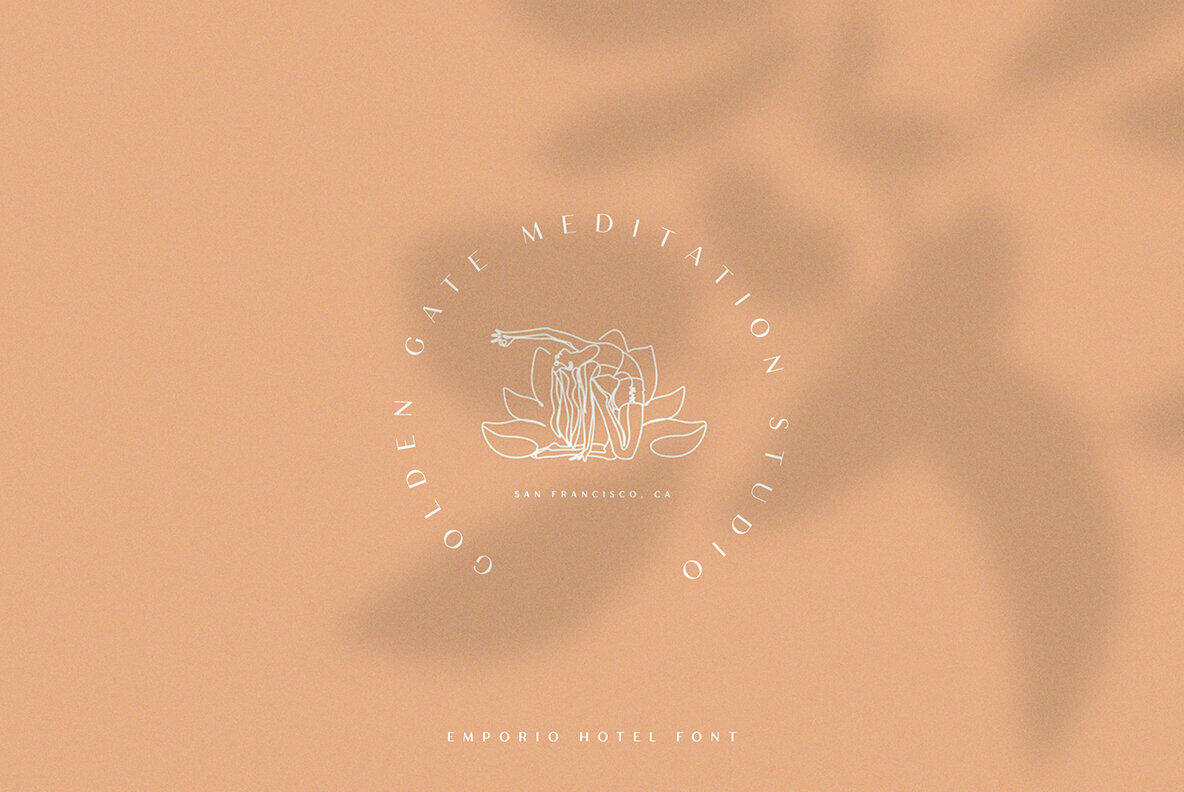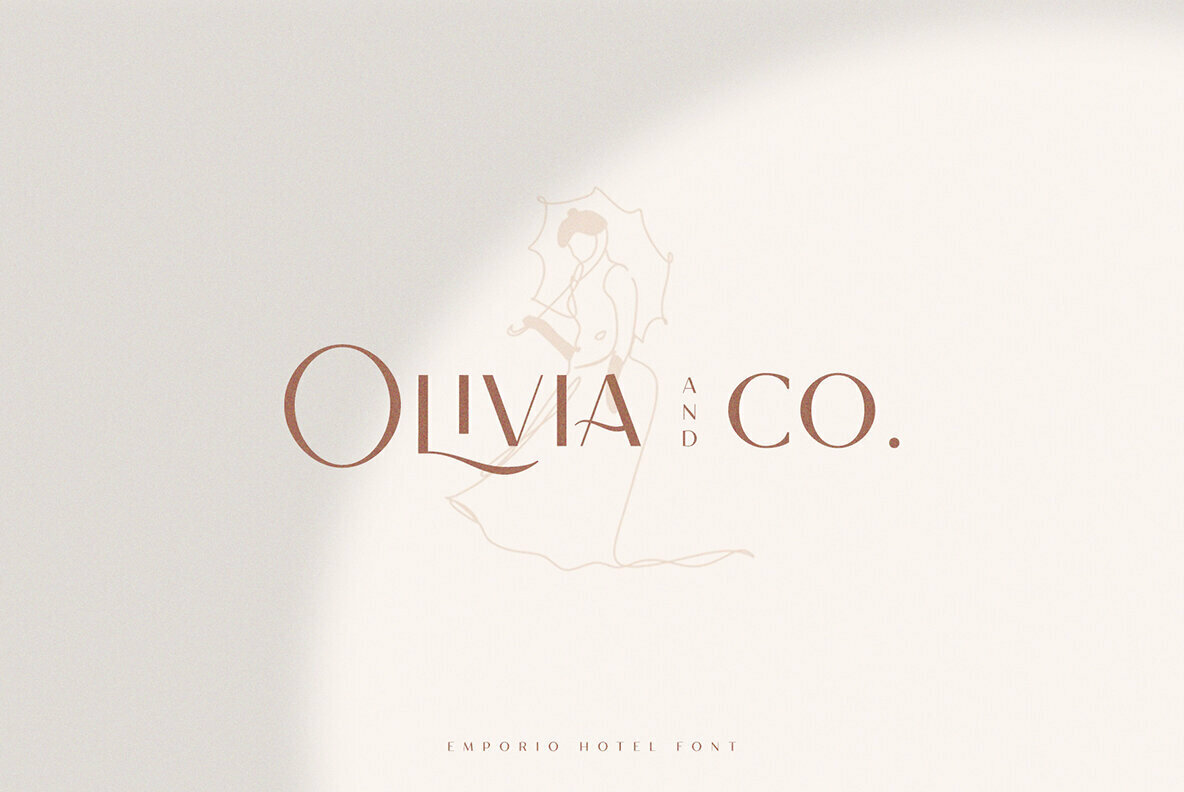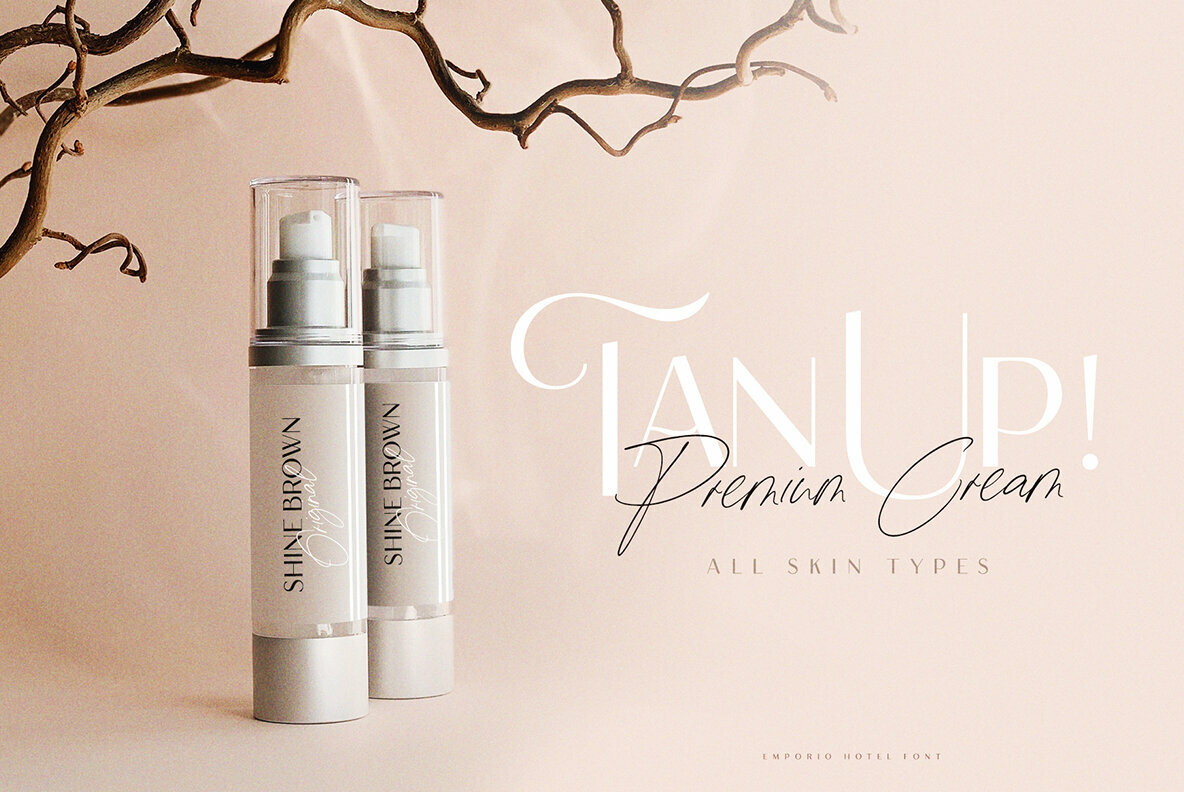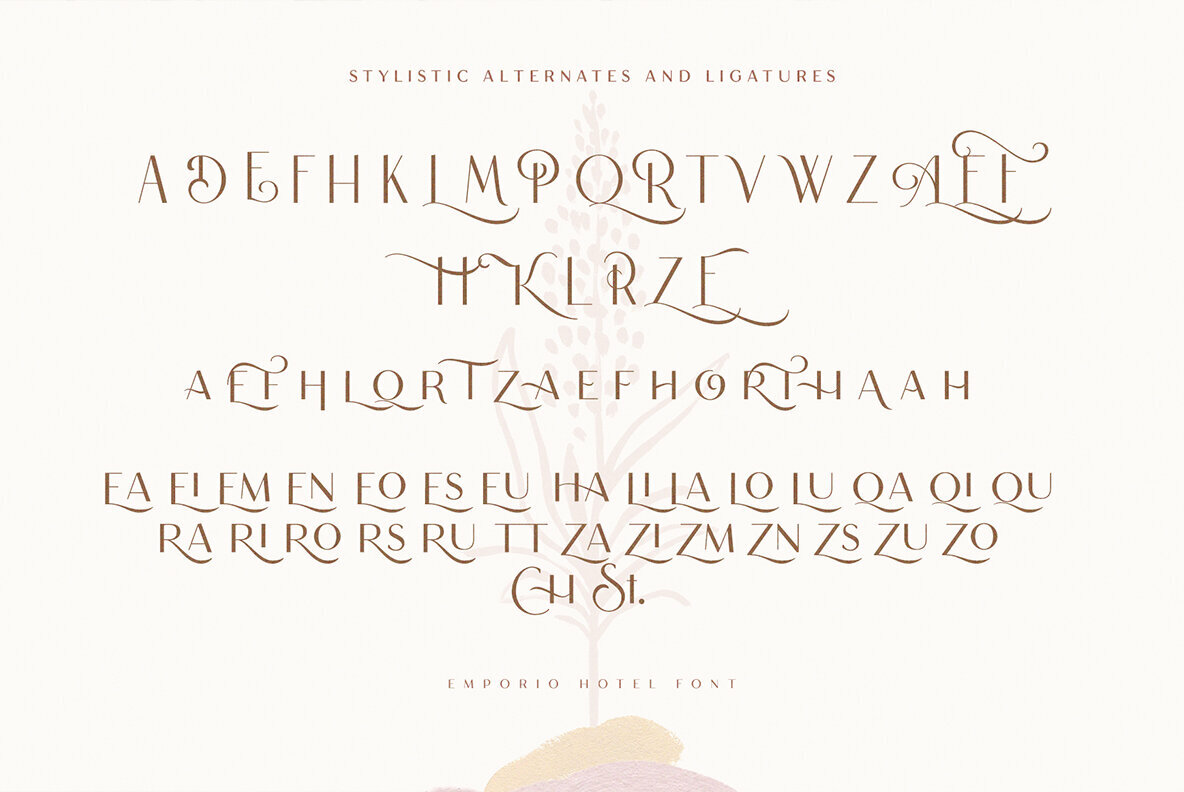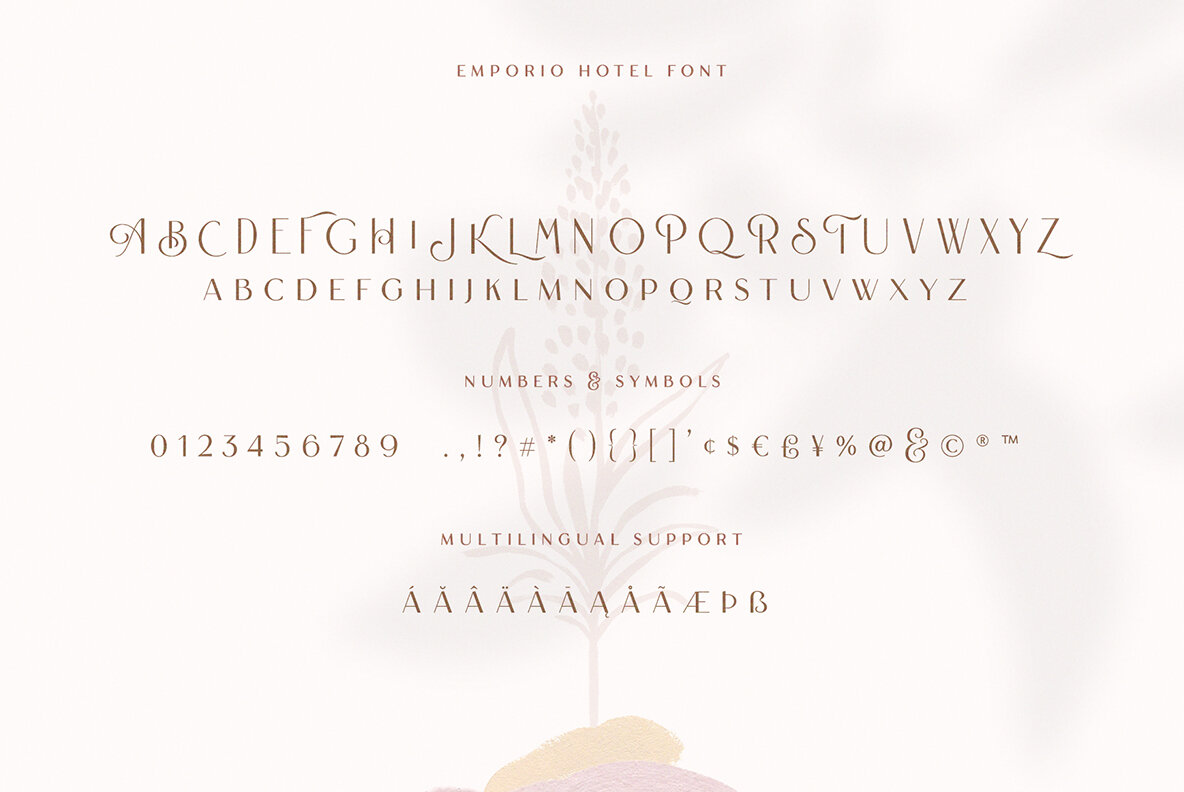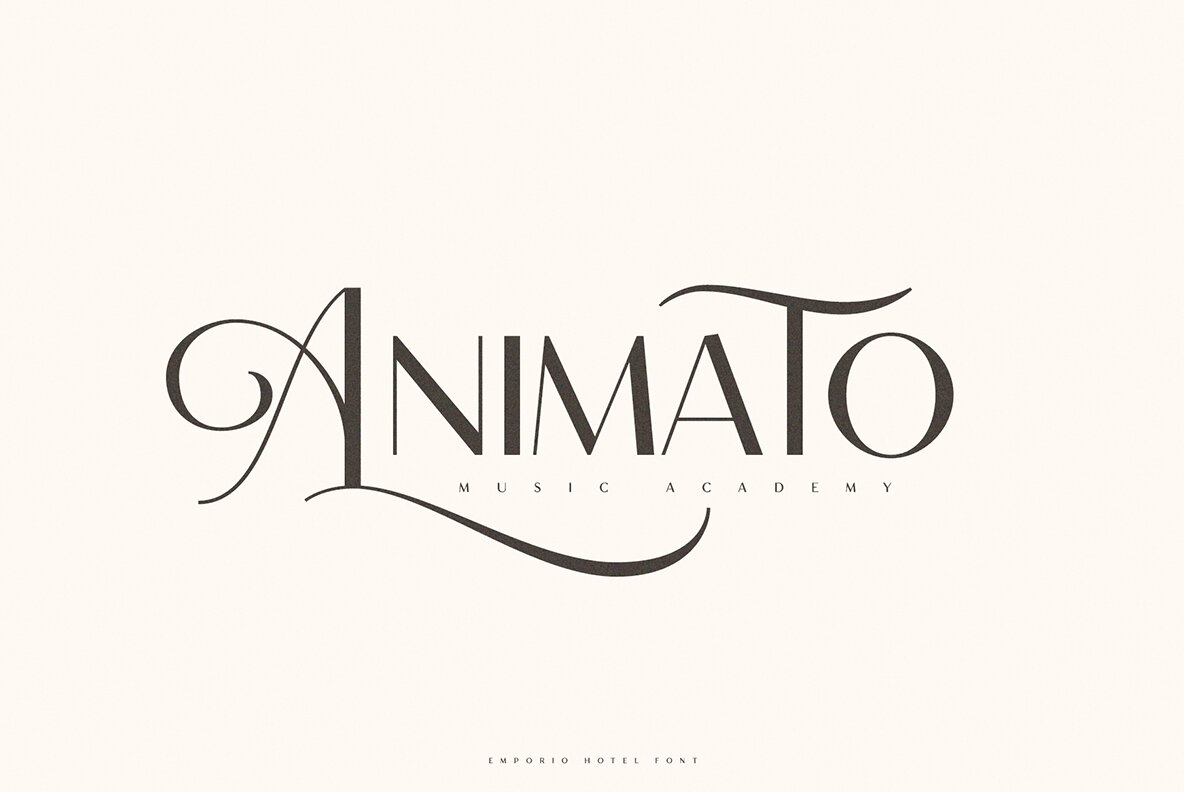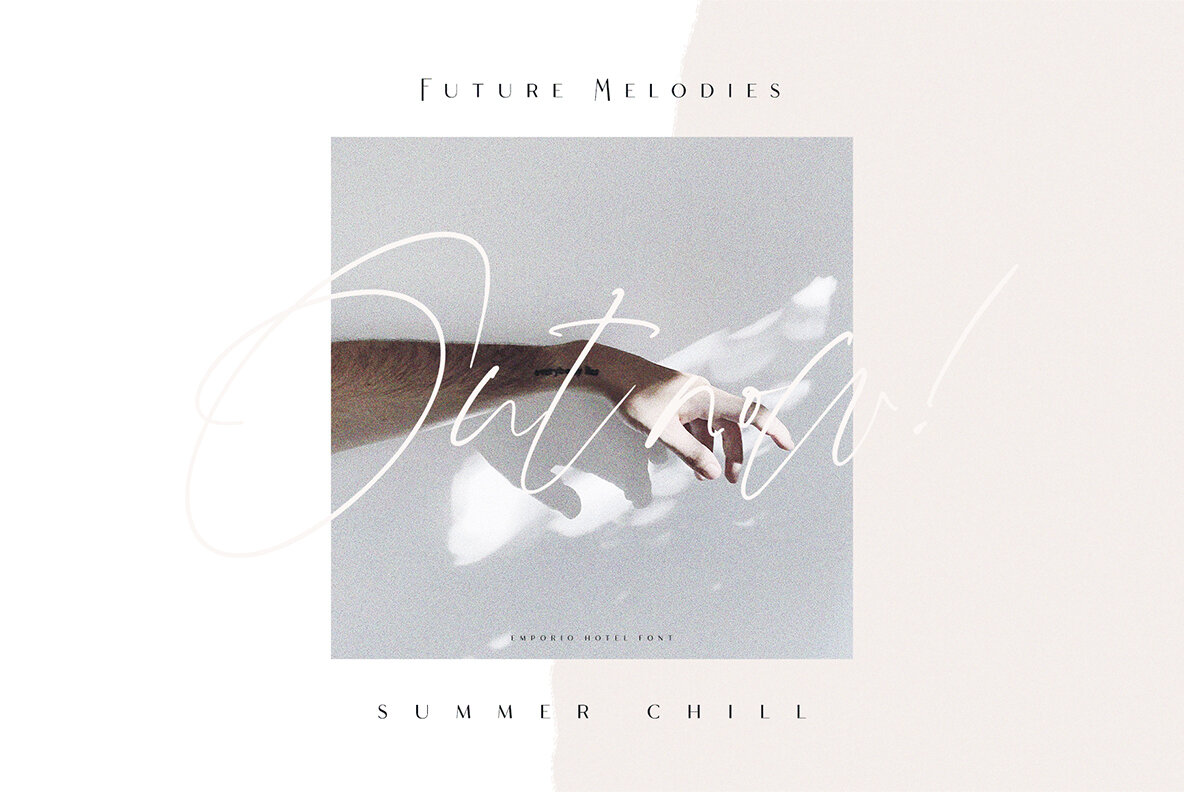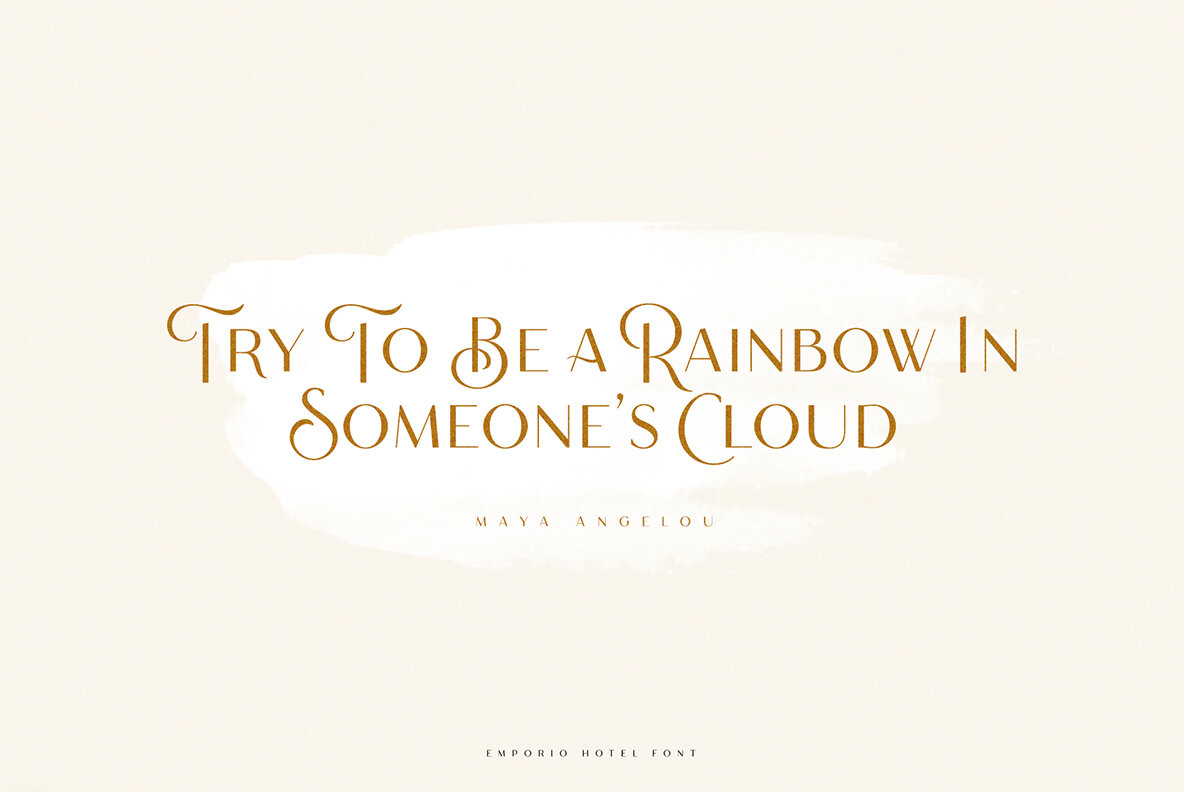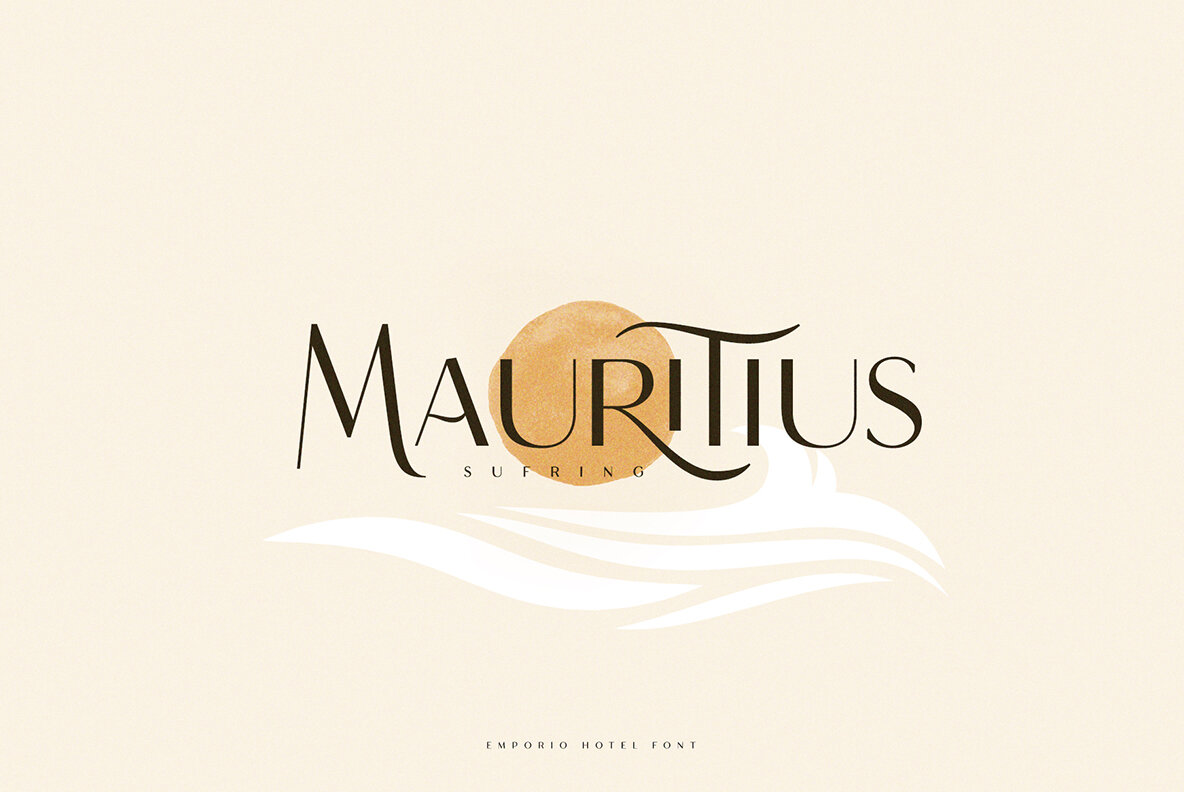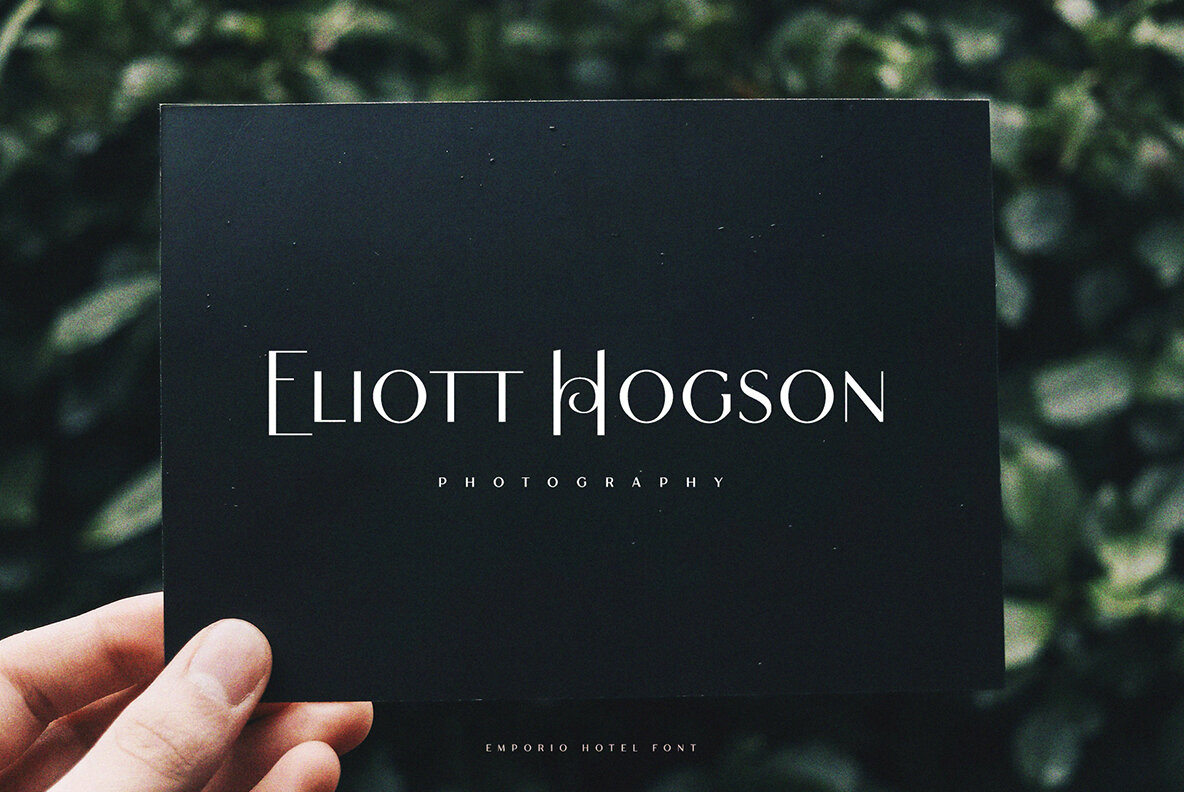
Emporio Hotel Font
Emporio Hotel is a gorgeous, modern, sans-serif design with a ton of stylistic alternates and ligatures to design with. Emporio Hotel works great for logos, headlines, posters, packaging, invitations, fashion, social media and many more!